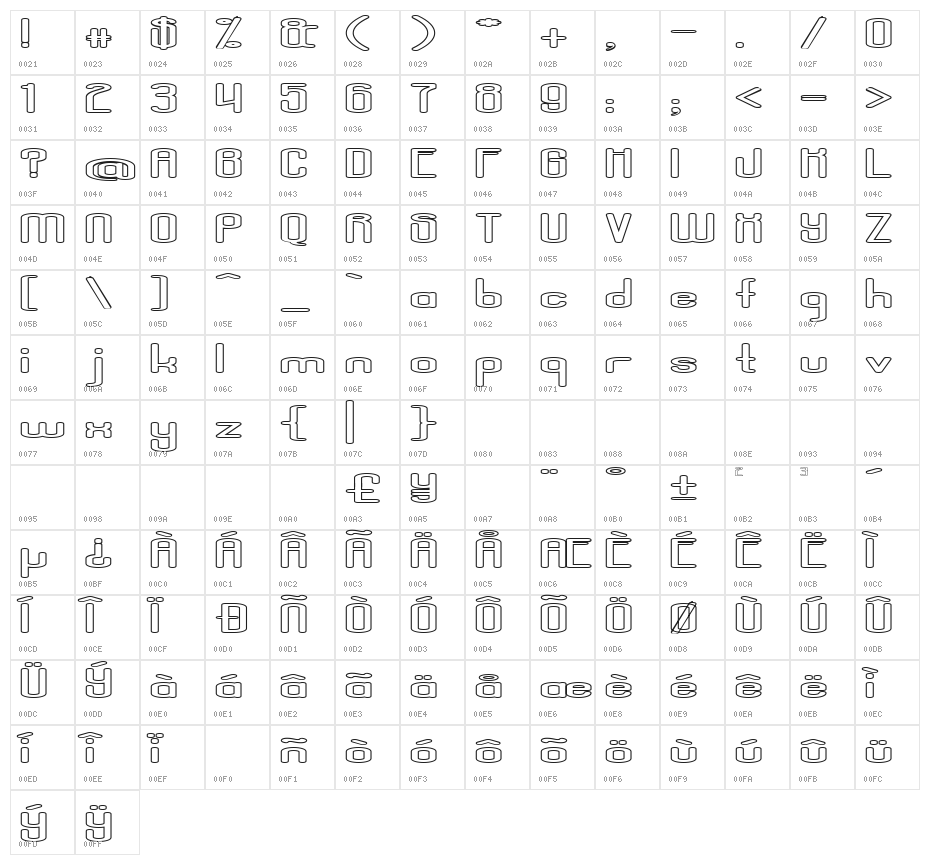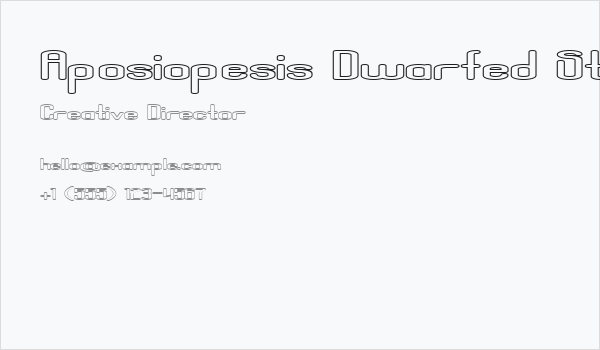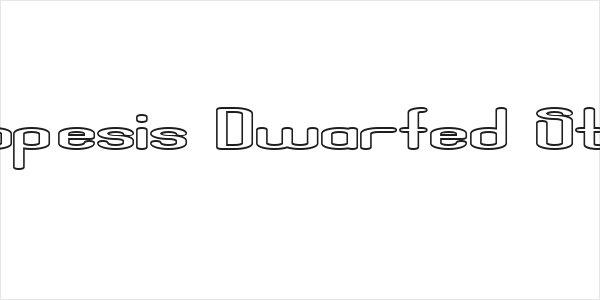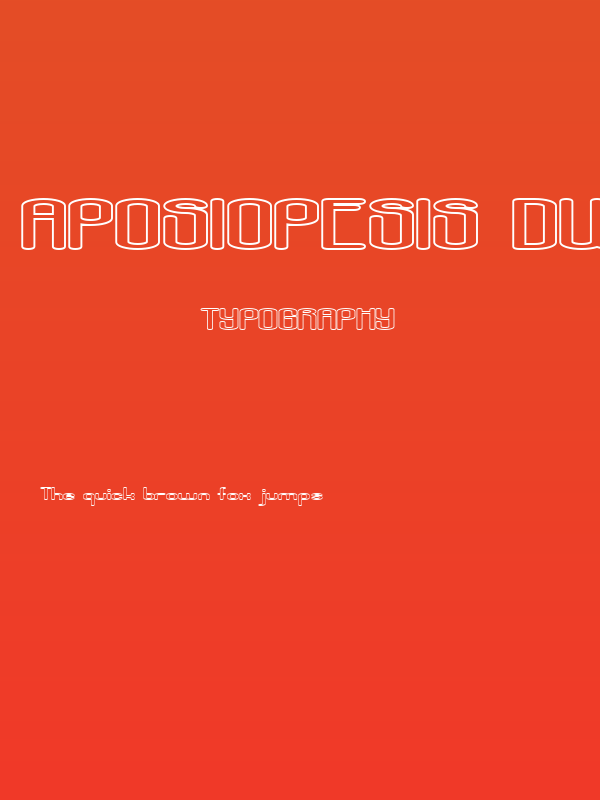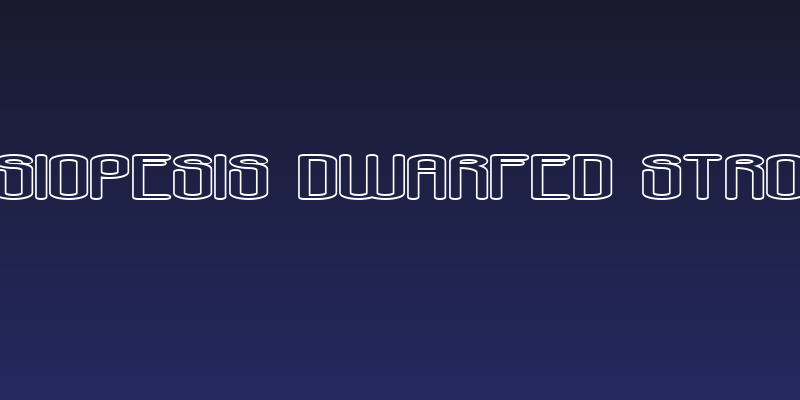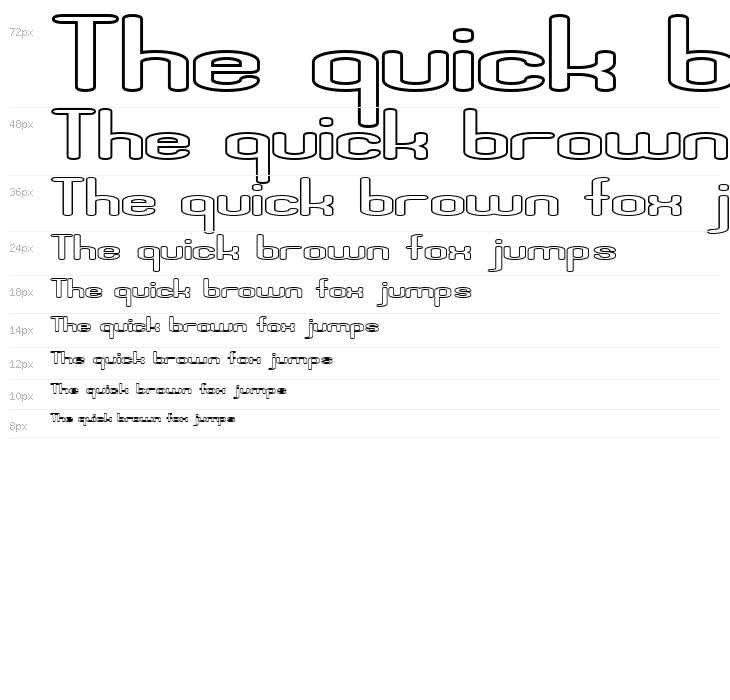
Aposiopesis Dwarfed Stroked Font
Aposiopesis Dwarfed Stroked Description
This font features a unique, outlined style with a modern and futuristic aesthetic. The characters are composed of thin, consistent strokes that form a hollow appearance, giving it a distinct, airy look. The uppercase and lowercase letters maintain a uniform width, contributing to a cohesive and balanced design. The numerals and special characters follow the same outlined pattern, ensuring consistency across all glyphs. This font's geometric structure and clean lines make it suitable for creative and contemporary projects.
| Use Case | Logos, Posters, Digital Art |
| Proposed Projects | Ideal for digital artwork, modern branding, tech-themed designs, and futuristic posters. |